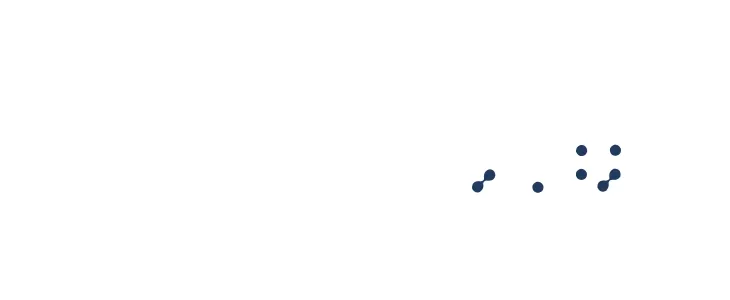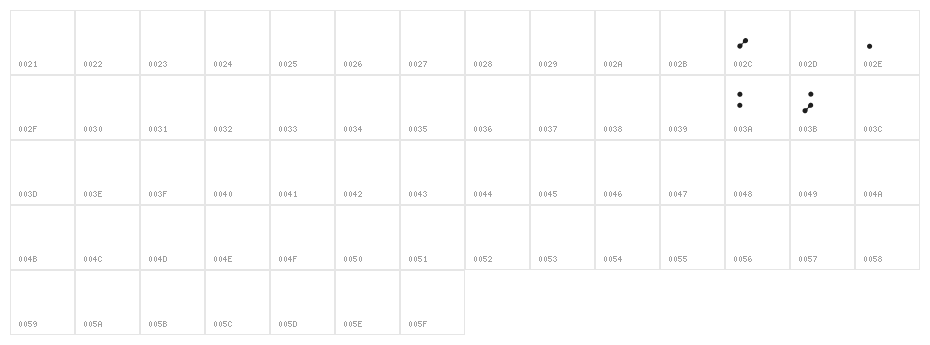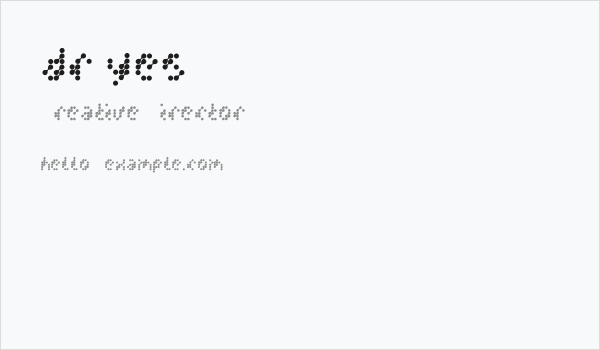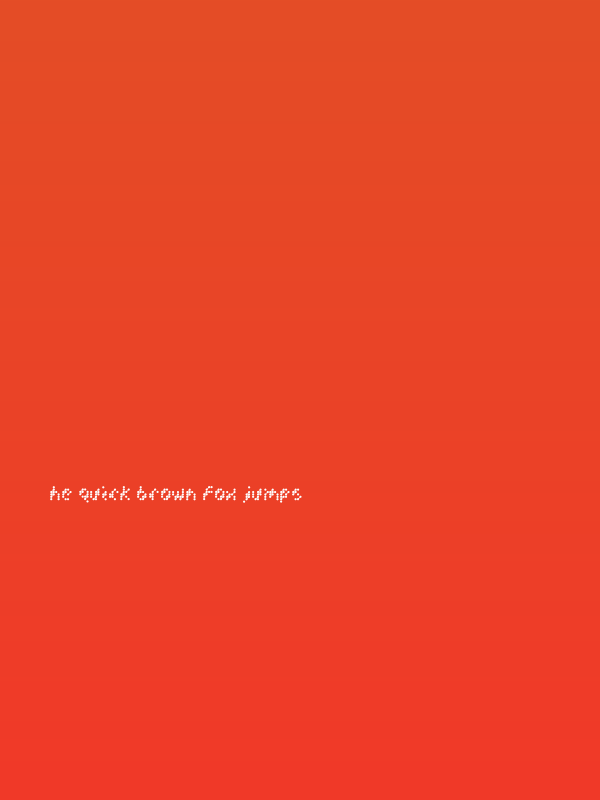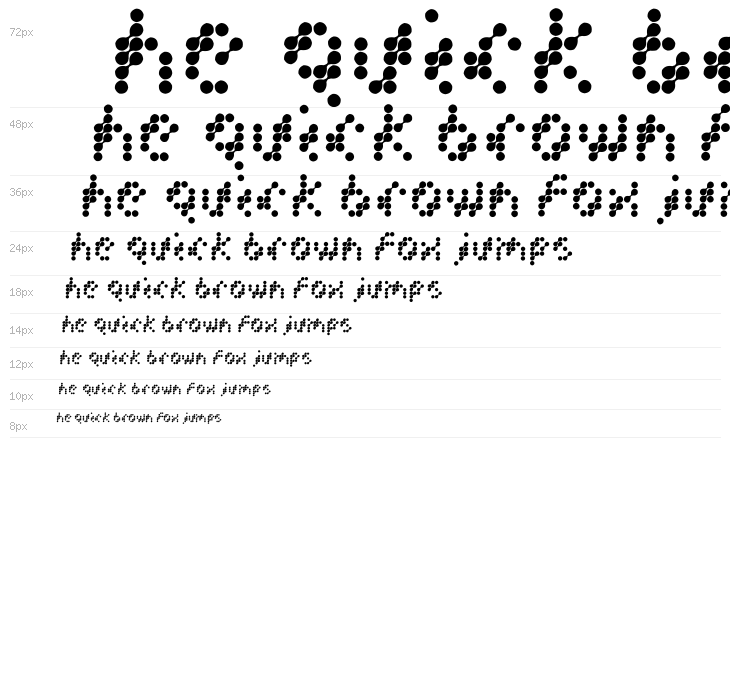
dr yes Font
This font is composed of small, evenly spaced dots forming each character, giving it a unique, digital appearance reminiscent of LED displays or dot matrix printers. The characters are clearly distinguishable, with a playful and modern aesthetic. The dot-based design provides a sense of lightness and openness, making it suitable for creative and tech-oriented projects. The font maintains consistent spacing and alignment, ensuring readability despite its unconventional style.
Use CaseLogos, Headlines, Digital displays
Proposed ProjectsIdeal for digital art, tech-themed designs, modern posters, and creative branding.